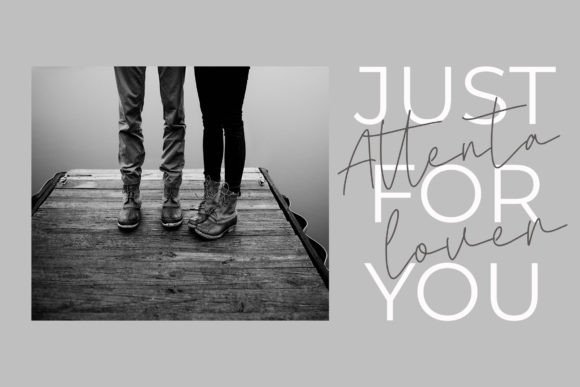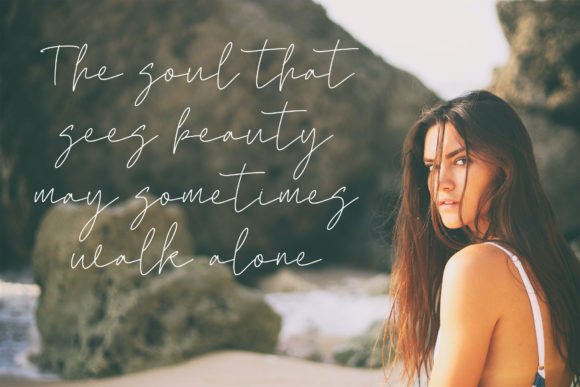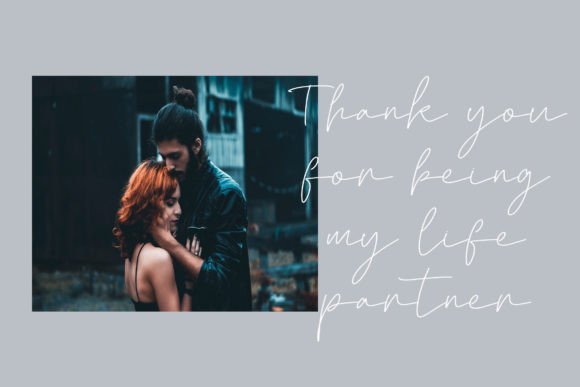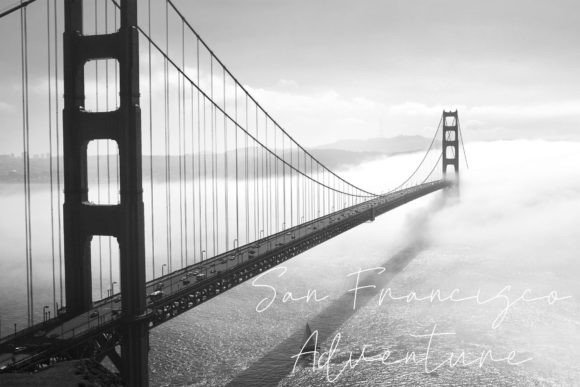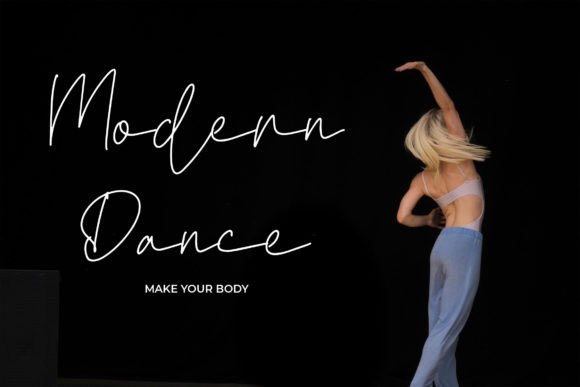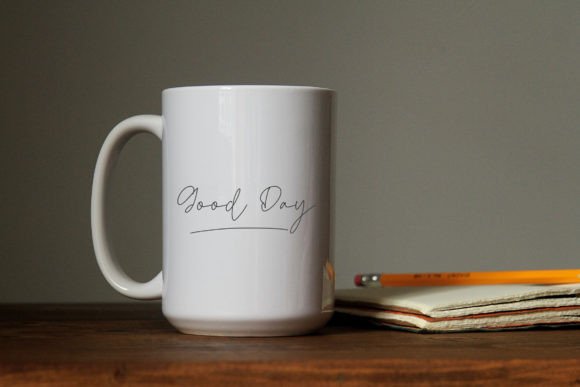
Introducing Betakra: The Elegant Monoline Script Font for Sophisticated Designs
In the world of typography, a font can make or break the visual appeal of a design project. For designers and crafters looking to elevate their work with a touch of sophistication and charm, Betakra is the perfect solution. This elegant script font boasts a sleek monoline design, beautifully crafted characters, and unique shapes that are sure to captivate audiences. In this article, we’ll dive into the features and benefits of Betakra, and explore how it can enhance your product visuals and creative designs.
What is Betakra Font?
Betakra is a monoline script font that exudes elegance and refinement. Its sleek, one-line design gives it a modern and streamlined look, making it perfect for a wide range of applications, from branding and packaging to digital media and advertising. With its unique character shapes and carefully crafted letterforms, Betakra adds a touch of sophistication to any project.
Key Features of Betakra Font
- Elegant Monoline Design: Betakra’s sleek monoline design gives it a modern and sophisticated look that’s perfect for high-end designs.
- Unique Character Shapes: Each character in Betakra has been carefully crafted with unique shapes that add a touch of charm and personality to your designs.
- Beautifully Crafted Characters: The font features beautifully designed characters with intricate details that make it perfect for use in a variety of creative projects.
- Highly Versatile: Betakra is suitable for a wide range of applications, including branding, packaging, digital media, and advertising.
Benefits of Using Betakra Font
So why choose Betakra for your design projects? Here are just a few benefits of using this elegant monoline script font:
- Adds Sophistication and Charm: Betakra’s elegant design and unique character shapes add a touch of sophistication and charm to any project.
- Enhances Product Visuals: With Betakra, you can create stunning product visuals that showcase your products in a beautiful and compelling way.
- Perfect for Creative Designs: The font’s unique character shapes and elegant design make it perfect for use in a variety of creative designs, from branding and packaging to digital media and advertising.
- Easy to Read and Understand: Despite its elegant design, Betakra is easy to read and understand, making it perfect for use in body text and other applications where readability is key.
How to Use Betakra Font
- Pair it with Other Fonts: Betakra pairs well with other fonts, so feel free to experiment with different font combinations to create a unique look.
- Use it for Headings and Titles: Betakra’s elegant design makes it perfect for use in headings and titles, where it can add a touch of sophistication and charm.
- Experiment with Different Colors: Betakra looks great in a variety of colors, so don’t be afraid to experiment with different color schemes to find the one that works best for your design.
In conclusion, Betakra is a beautiful and elegant monoline script font that’s perfect for designers and crafters looking to add a touch of sophistication and charm to their work. With its unique character shapes, beautifully crafted characters, and highly versatile design, Betakra is sure to become a go-to font for creative professionals. Whether you’re looking to enhance your product visuals, create stunning creative designs, or simply add a touch of elegance to your work, Betakra is the perfect choice.